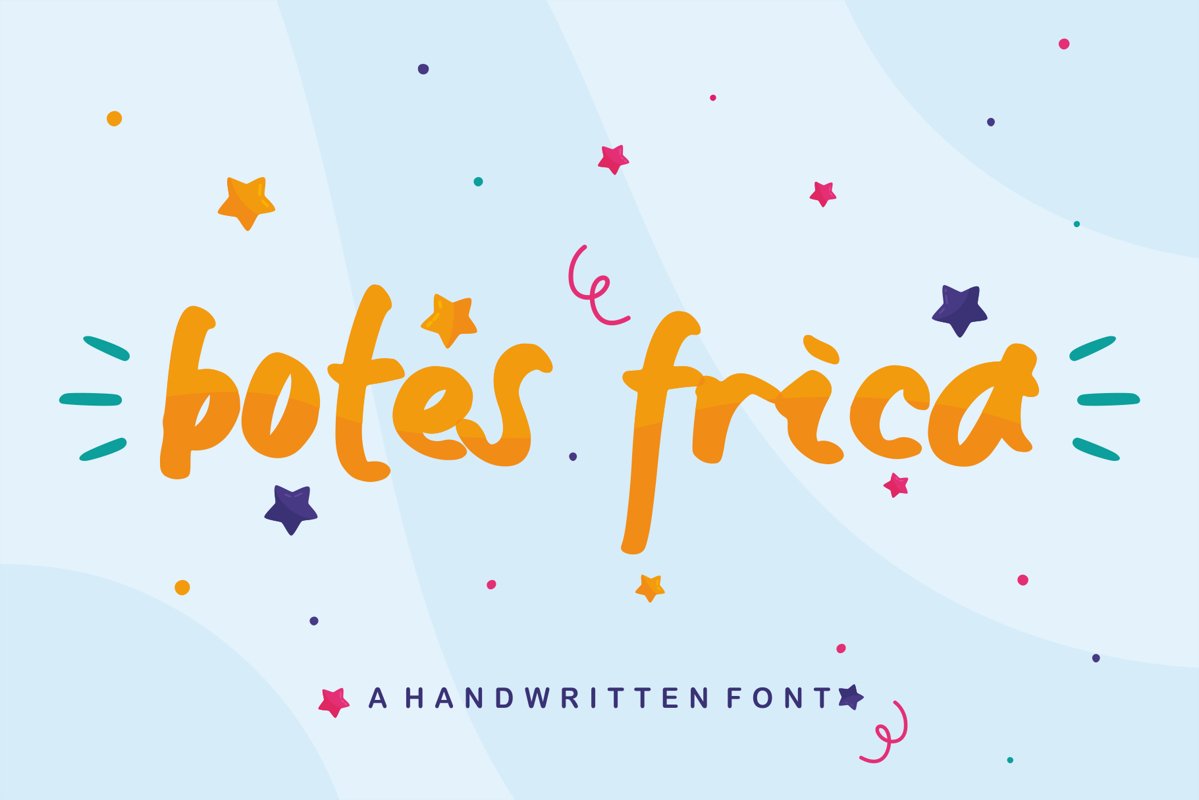
Botes Frica - A handwritten Font
botes frica
Botes Frica is a cute handwritten font. It embodies fun, playful, and authenticity. This enchanting display font will turn any creative idea into a true standout.
This font is perfect for quotes, shirt designs, mug designs, branding, overlay image, kids' blogs, baby logos, baby theme design, and more!